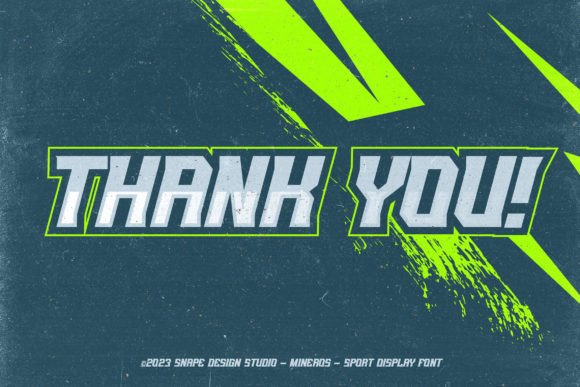
Introduction to Mineros Font
Have you ever been brainstorming ideas for a new design project, only to be stuck in a creative rut? Maybe you’re working on a logo for a sports team or a website for a fitness studio, but you just can’t seem to find the perfect font to match your vision. That’s where the Mineros Font comes in – a high-quality, sport-inspired display font that’s sure to bring your design to life.
As a valuable resource for designers, the Mineros Font offers a bold and dynamic style that’s perfect for creating energetic and athletic designs. With its sharp angles and powerful curves, this font exudes confidence and competitiveness, making it ideal for logos, jerseys, and other projects that require a strong and sporty font.
Key Features of Mineros Font
- Comes in a single weight, ideal for use in logos, titles, and other design elements
- Unique, modern design that adds a touch of sophistication to any creative project
Honest Review: Mineros Font
I recently came across the Mineros Font and was excited to give it a try for my latest design project. As a designer, I’m always on the lookout for high-quality fonts that can elevate my creative work.
The Mineros Font is a great addition to any design resource, offering a unique and stylish look that can add a professional touch to any project. One of the standout features of this font is its versatility, making it suitable for a wide range of creative projects.
- Unique and stylish design
- High-quality and crisp font
While the Mineros Font is a great resource, there are a few limitations to consider. One of the main drawbacks is the limited character set, which may not be suitable for all design projects.
Overall, I’m impressed with the Mineros Font and would highly recommend it for designers looking for a high-quality, unique font to add to their design resource library.